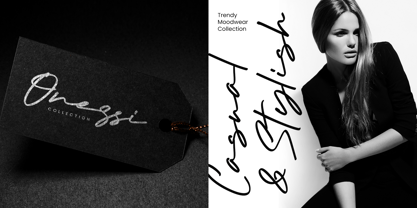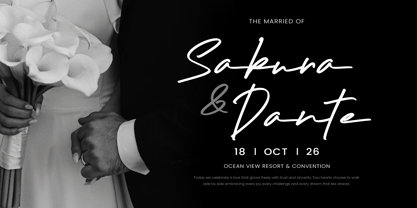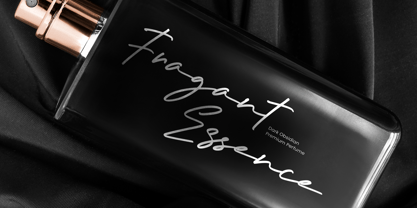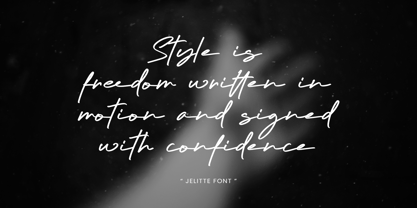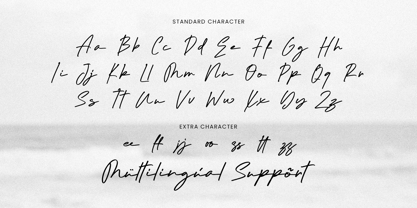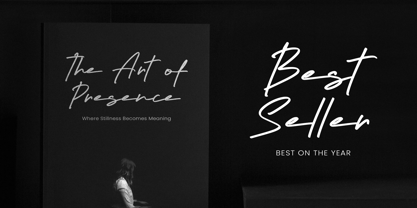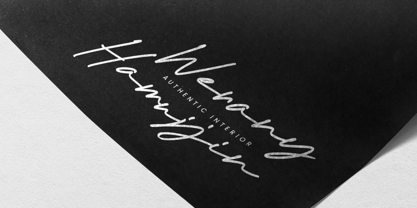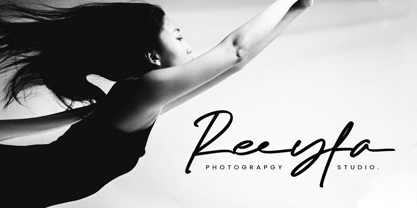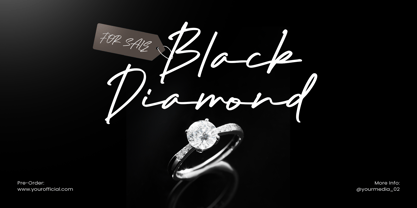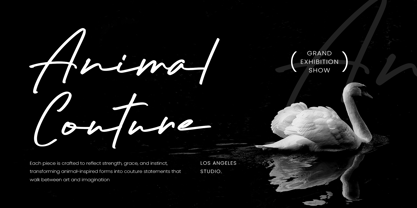
Jelittebyte
by Vampstudio
The Jelittebyte Font Family was designed by Irfan syah and published by Vampstudio. Jelittebyte contains 1 styles. More about this family
Jelittebyte is an elegant handwritten script font with smooth strokes and natural movement. Crafted to feel personal yet refined, this font delivers a modern handwritten look that stays clean and readable. Jellite is ideal for branding, logos, fashion design, editorial layouts, packaging, social media posts, and lifestyle projects. Its flowing characters and subtle personality add warmth and sophistication to both digital and print designs.
Designers: Irfan syah
Foundry: Vampstudio